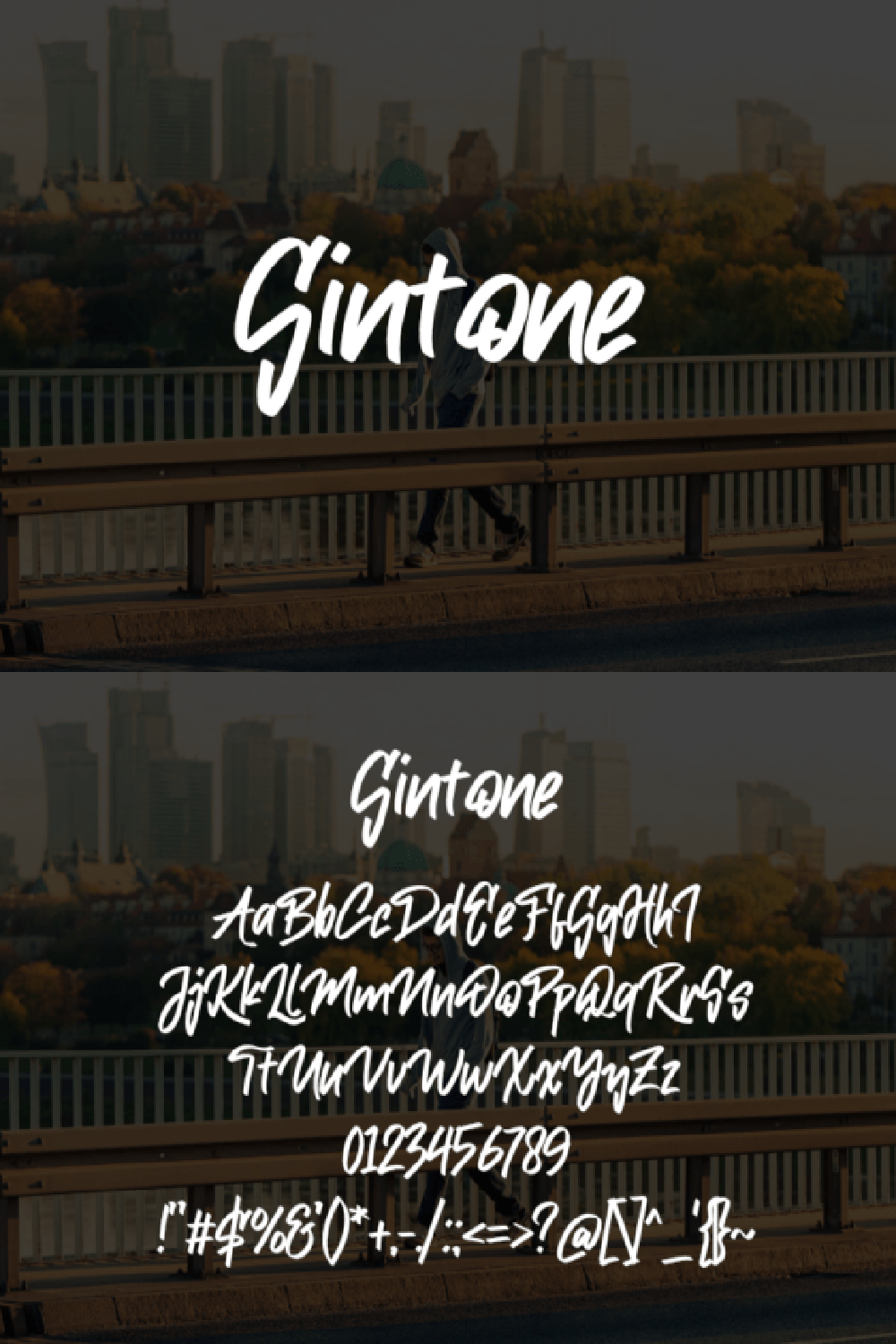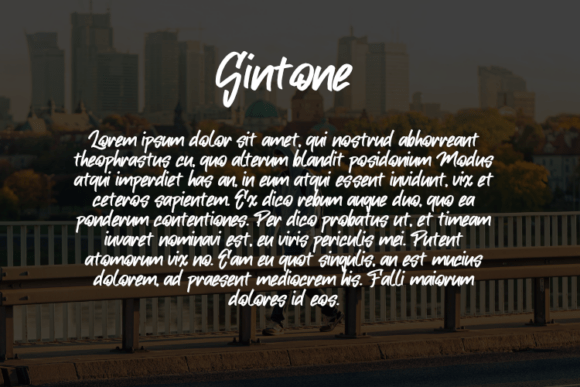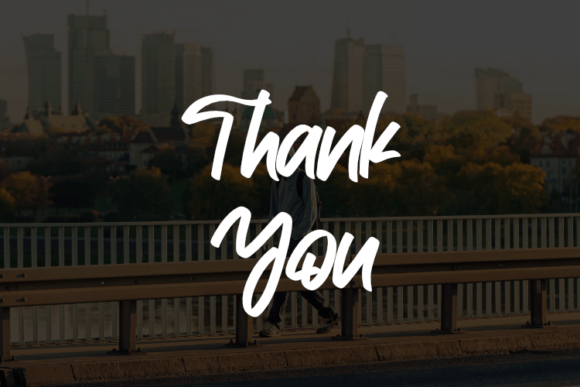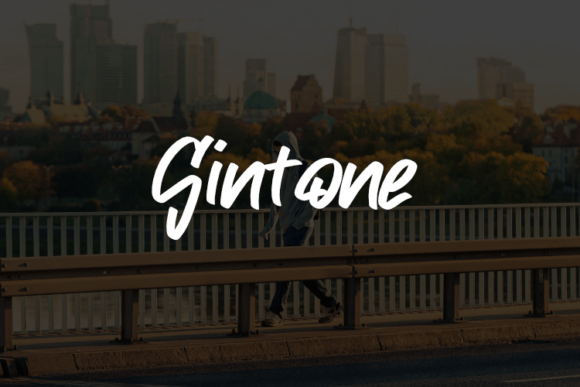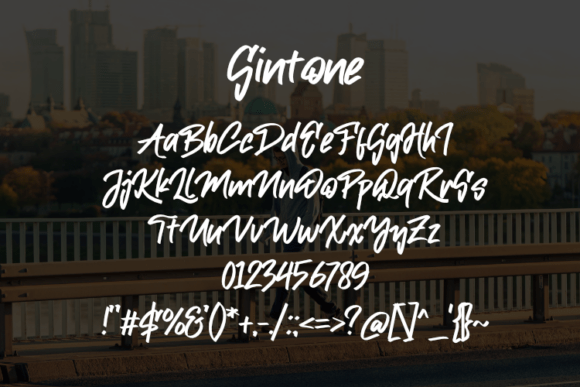
Gintone Font: A Modern Handwritten Script for Creative DIY & Branding
About the Gintone Font
Add a touch of class to your work with the Gintone Font, a truly exceptional typeface. Step into the world of stylish lettering with ‘Gintone’, a font that breathes life into your clothing and product designs. Seamlessly compatible across all design programs, ‘Gintone’ exudes a flair of versatility, perfect for invigorating t-shirts, accessories, and a range of other products. Delivered in an easy-to-execute otf file format, ‘Gintone’ offers a fluid, contemporary design experience, ensuring every creation you craft stands out in absolute uniqueness. Elevate your designing spectrum with ‘Gintone’, where style encounters effortless convenience.